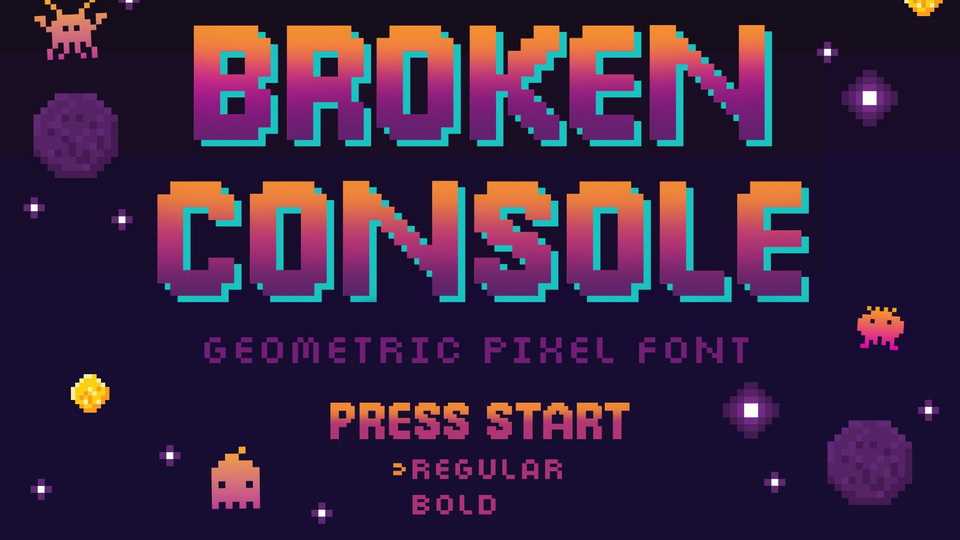
Download Broken Console font, a geometric pixel typeface inspired by the old school game console which displaying pixel art in the game view. Broken Console font is an all-caps font that is suitable for the contemporary era of graphic design nowadays.